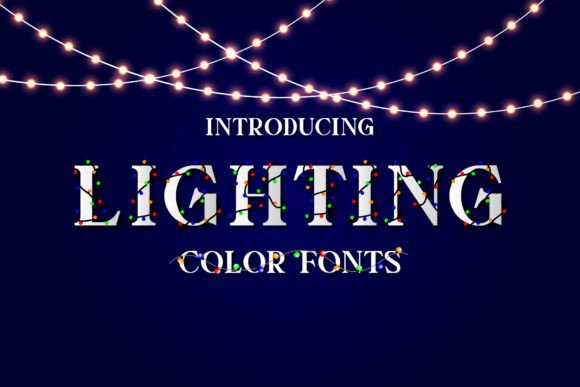
Introducing Lighting Font, the perfect font for holidays and special occasions! Created by the talented Fox7, this colorful font will truly elevate your creative projects and leave a lasting impression. Are you ready to add a touch of magic to your designs? Then let's dive into what makes Lighting Font so unique and captivating!
With its authentic and playful feel, Lighting Font is guaranteed to steal your heart. Imagine the joy and excitement it will bring to your invitations, stationary art, social media posts, and greeting cards. This font is more than just letters on a page – it's an experience that will make your creations shine!
But that's not all, folks. Lighting Font is not your ordinary typeface. It's a color font (Opentype-SVG) that adds a whole new dimension to your designs. Say goodbye to dull and flat text and welcome vibrant and eye-catching letters that pop off the page. Whether you're a professional graphic designer or a DIY enthusiast, this font is compatible with popular design tools like PhotoShop, Illustrator, Silhouette, and Inkscape. However, please note that the OTF and/or TTF files of this product are not compatible with Cricut.
Now, let's talk about the endless possibilities this font offers. Lighting Font is like a magic wand for your creativity. It breathes life into your projects, making them stand out from the crowd. Picture the smiles on your loved ones' faces when they receive an invitation adorned with this enchanting font. Imagine the attention your social media posts will receive when they're beautifully crafted with Lighting Font. It's time to unleash your imagination and let this font be the secret ingredient that sets your creations apart.
So, what are you waiting for? Dive into the magical world of Lighting Font and let your creativity soar. It's time to make a statement, leave a lasting impression, and create memories that will be cherished for a lifetime. Don't settle for ordinary – choose extraordinary with Lighting Font!